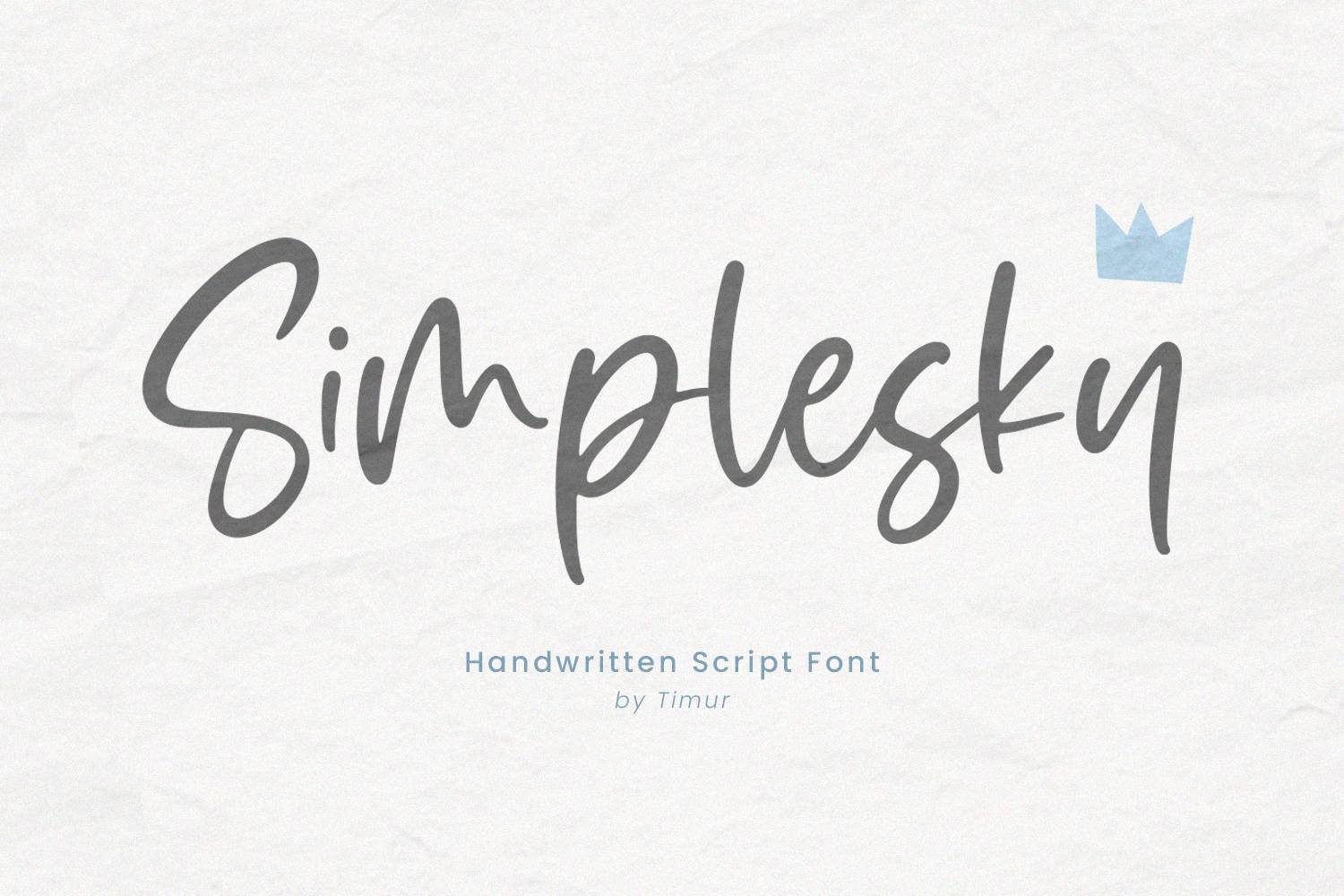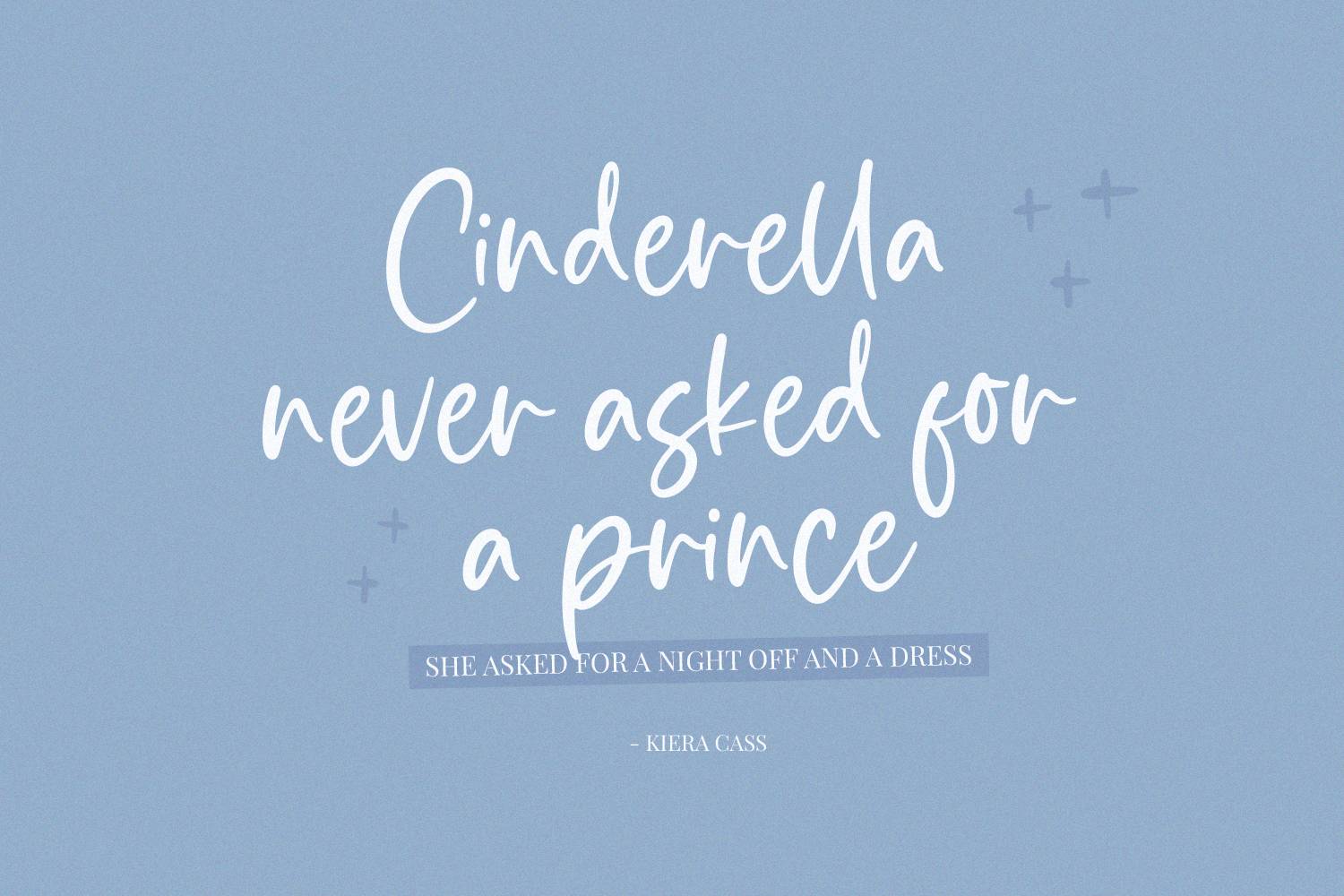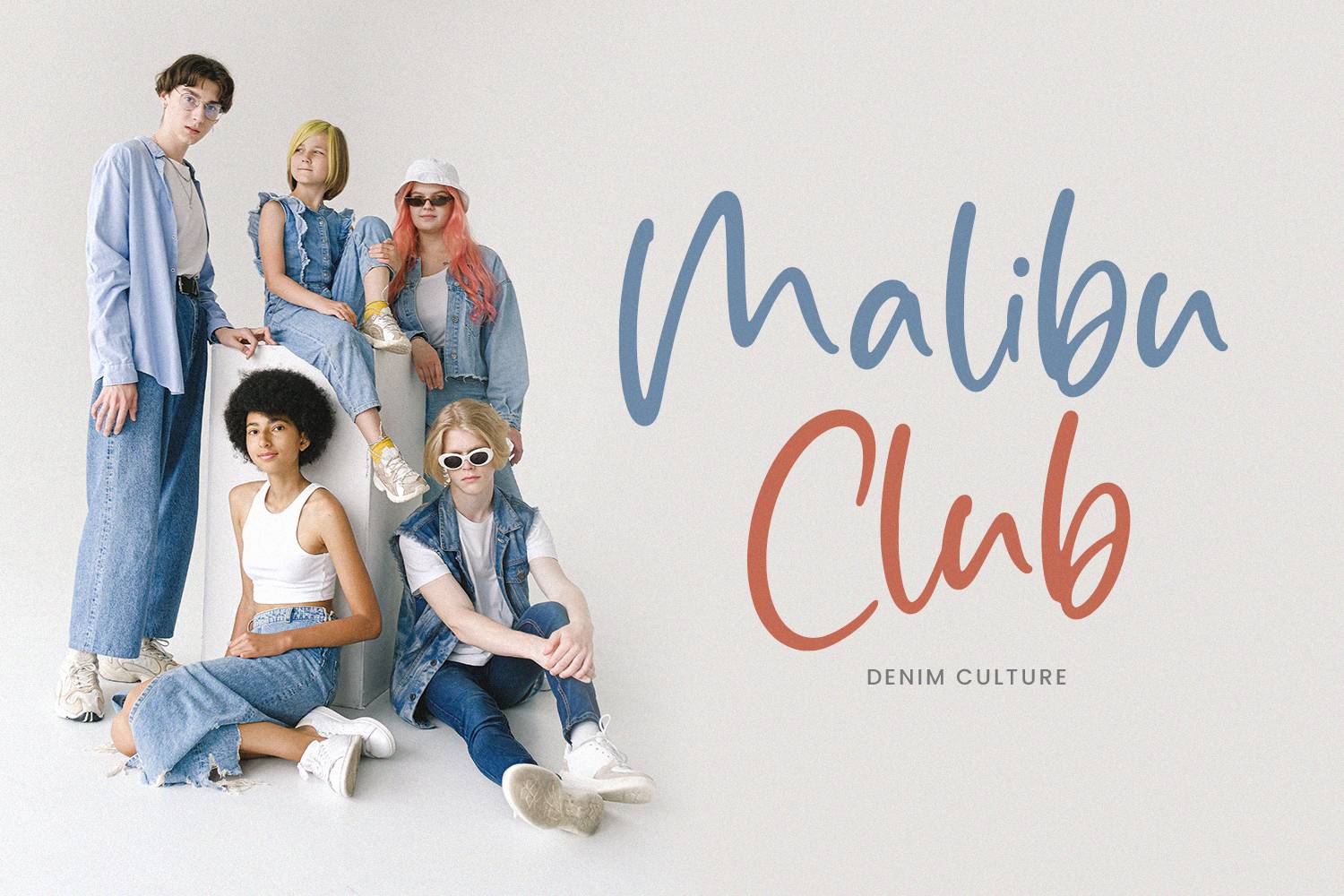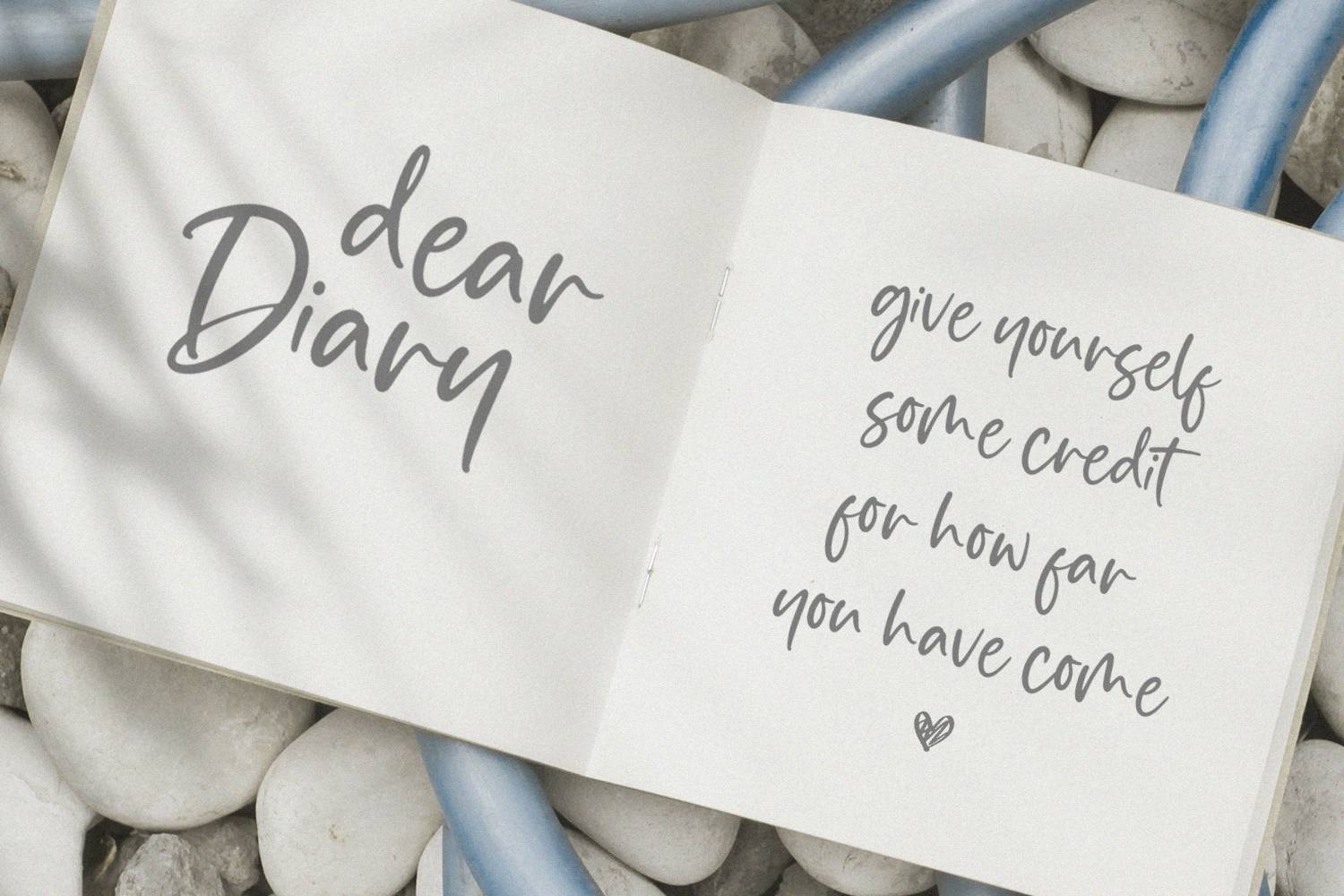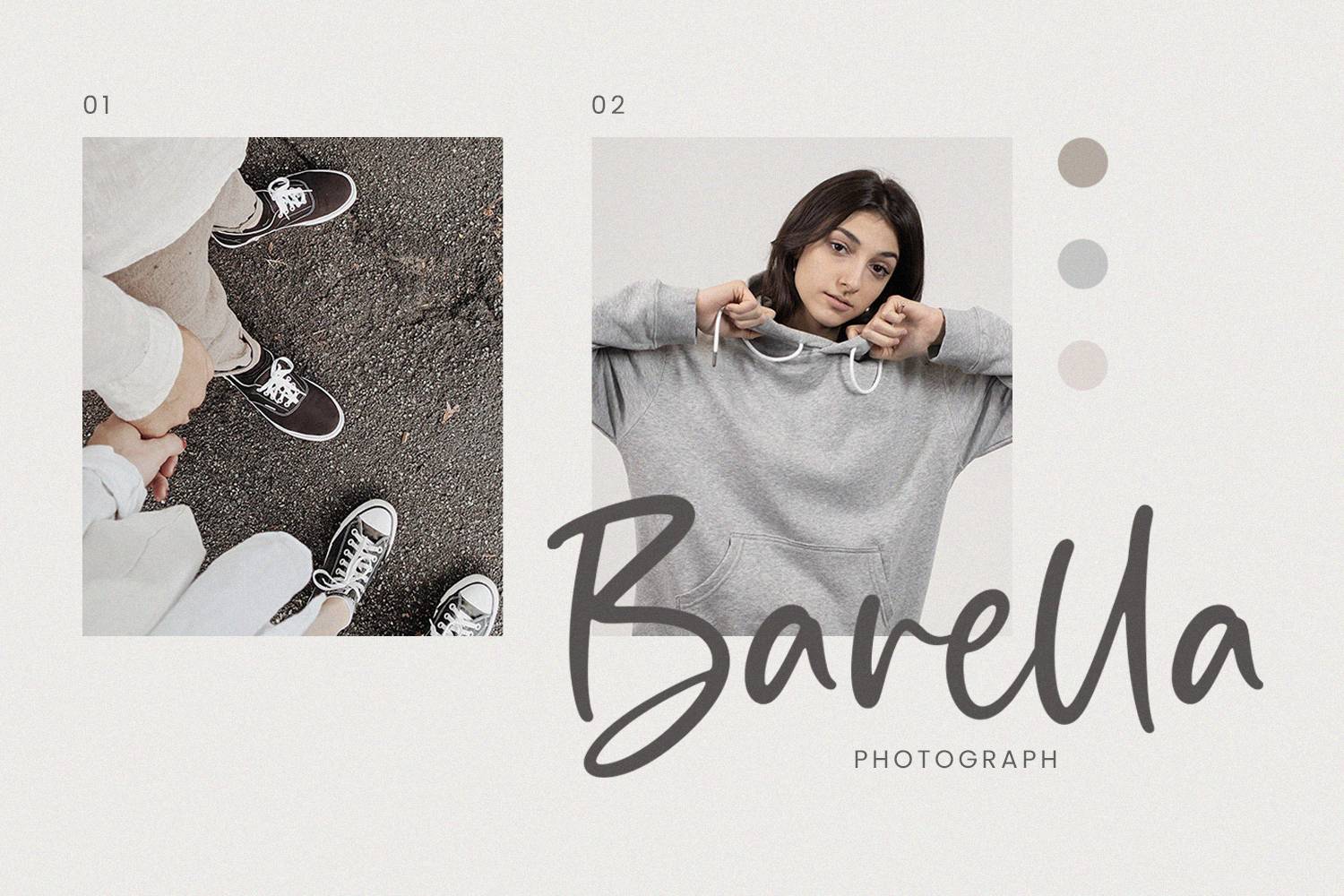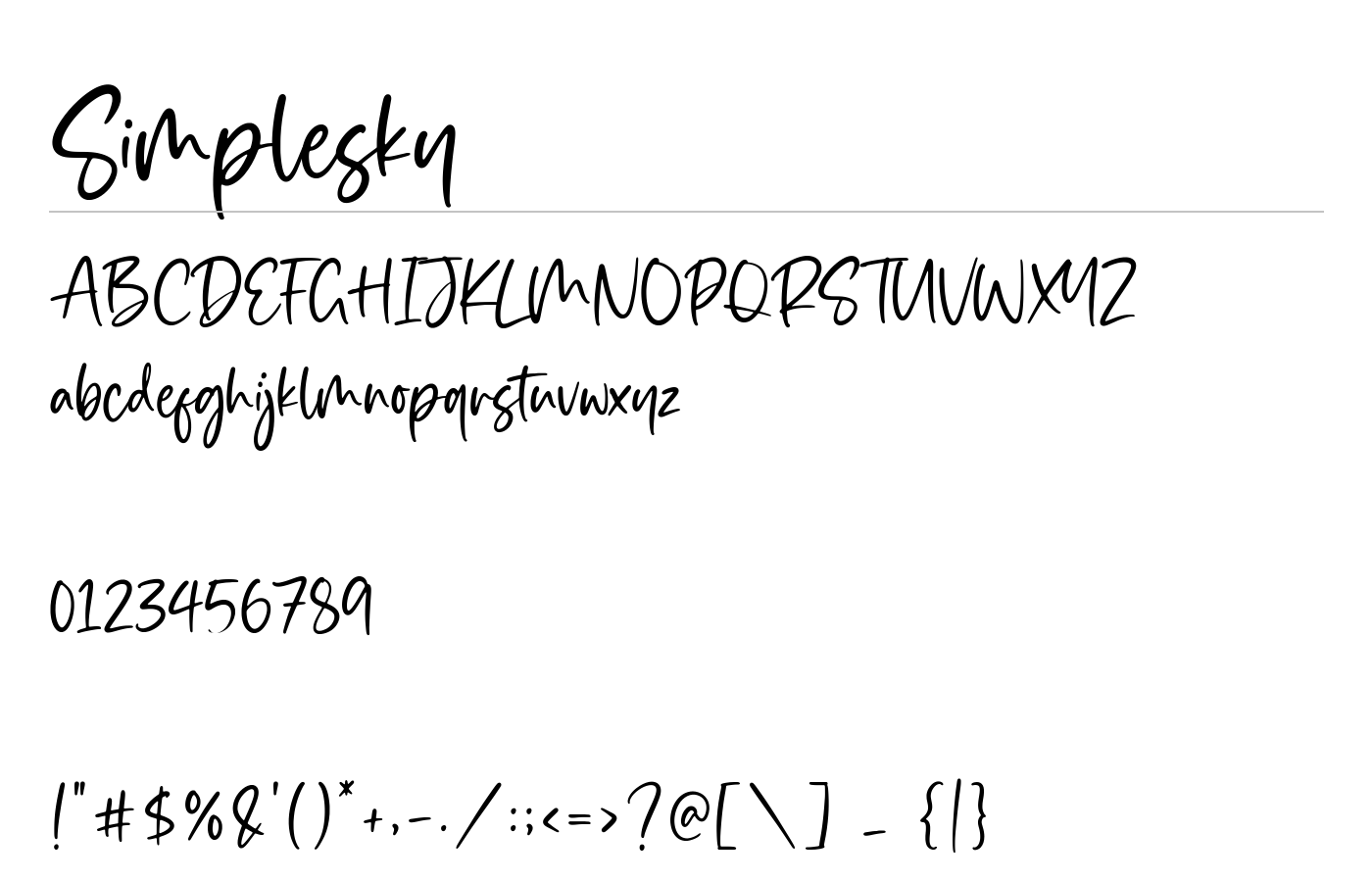
Simplesky is a casual, handwritten sans serif font with a light weight and slightly condensed width, offering a playful and approachable feel. Its lively, flowing strokes and tall x-height create an energetic look that works well for informal branding, personal projects, and creative headlines. This font is perfect for designs needing a friendly, modern touch without sacrificing readability.
Simplesky Font
About Simplesky Font